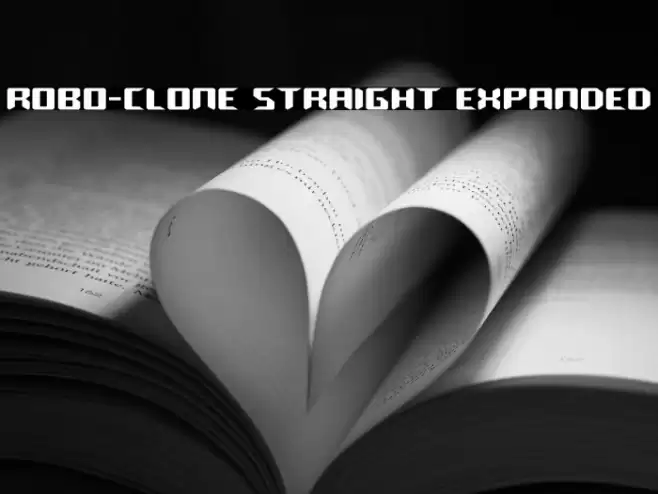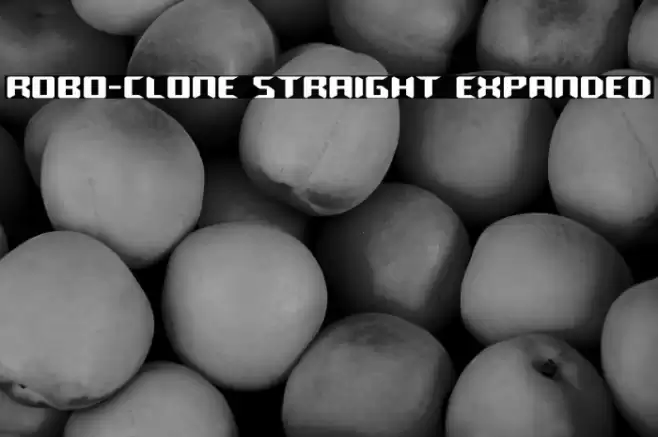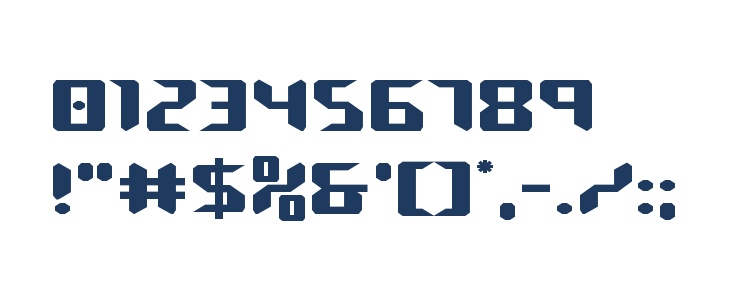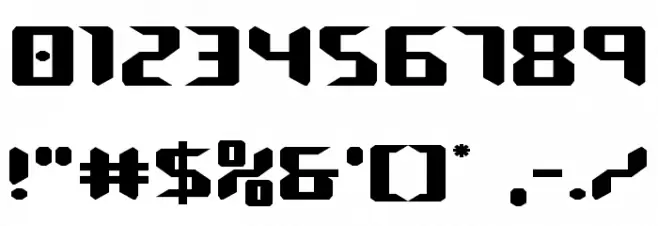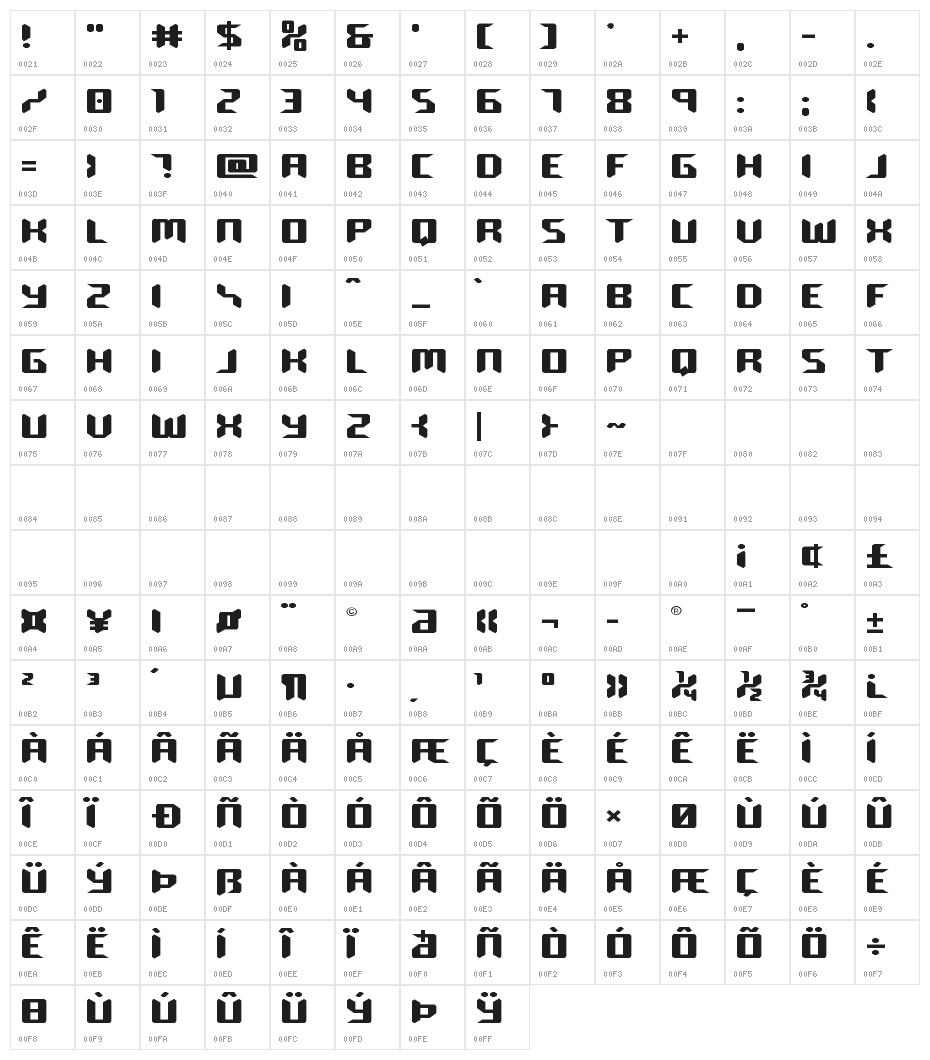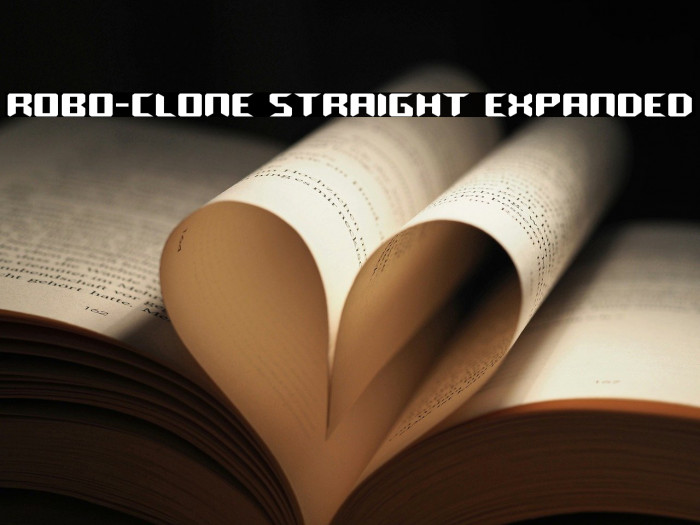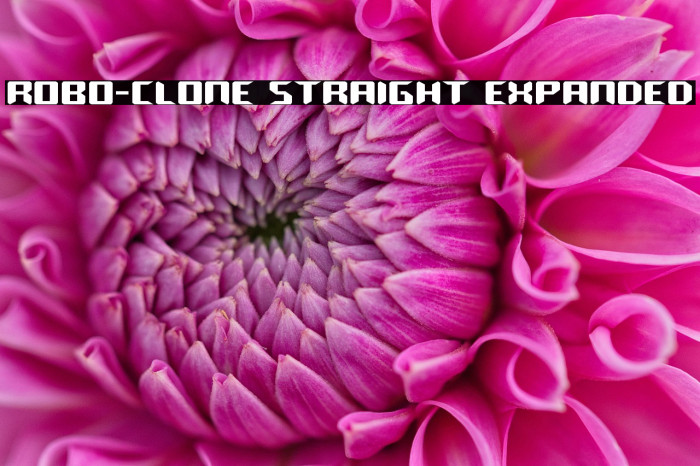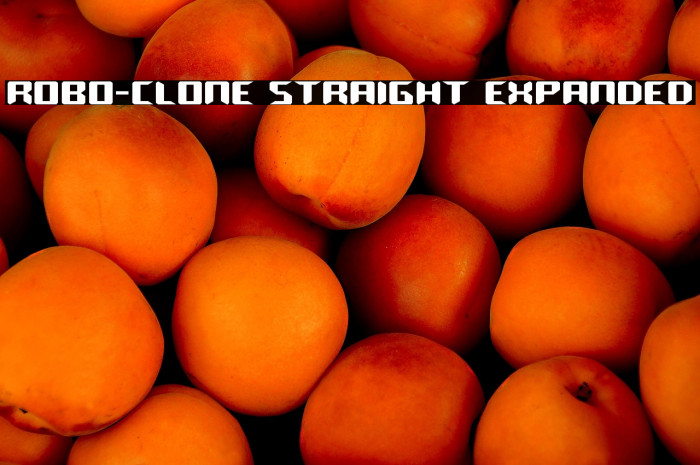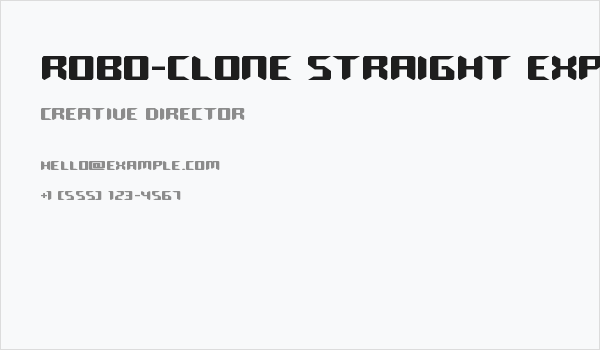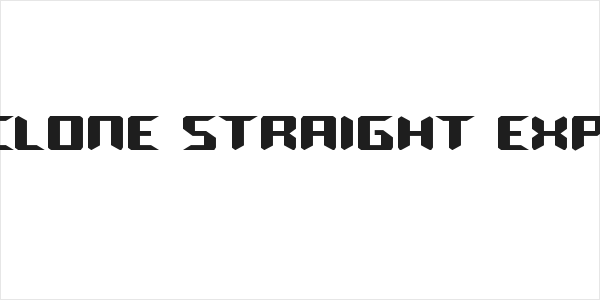
Robo-Clone Straight Expanded Font
Robo-Clone Straight Expanded Description
This font features a bold, futuristic design with straight, angular lines and a distinctly mechanical appearance. The characters are uniformly expanded, giving them a wide stance that enhances readability while maintaining a unique, robotic aesthetic. The uppercase and lowercase letters share a consistent geometric style, with sharp edges and a uniform stroke width that conveys a sense of precision and modernity. The numerals and special characters are crafted with the same attention to detail, ensuring a cohesive look across all elements. This font's expanded width and bold presence make it ideal for projects that require a strong, impactful visual statement.
A bold, futuristic font with angular lines and an expanded, mechanical design from Uncategorized fonts.
- Proposed Projects: Ideal for technology branding, sci-fi themed projects, video game interfaces, and futuristic posters.
- Overall Style: Futuristic